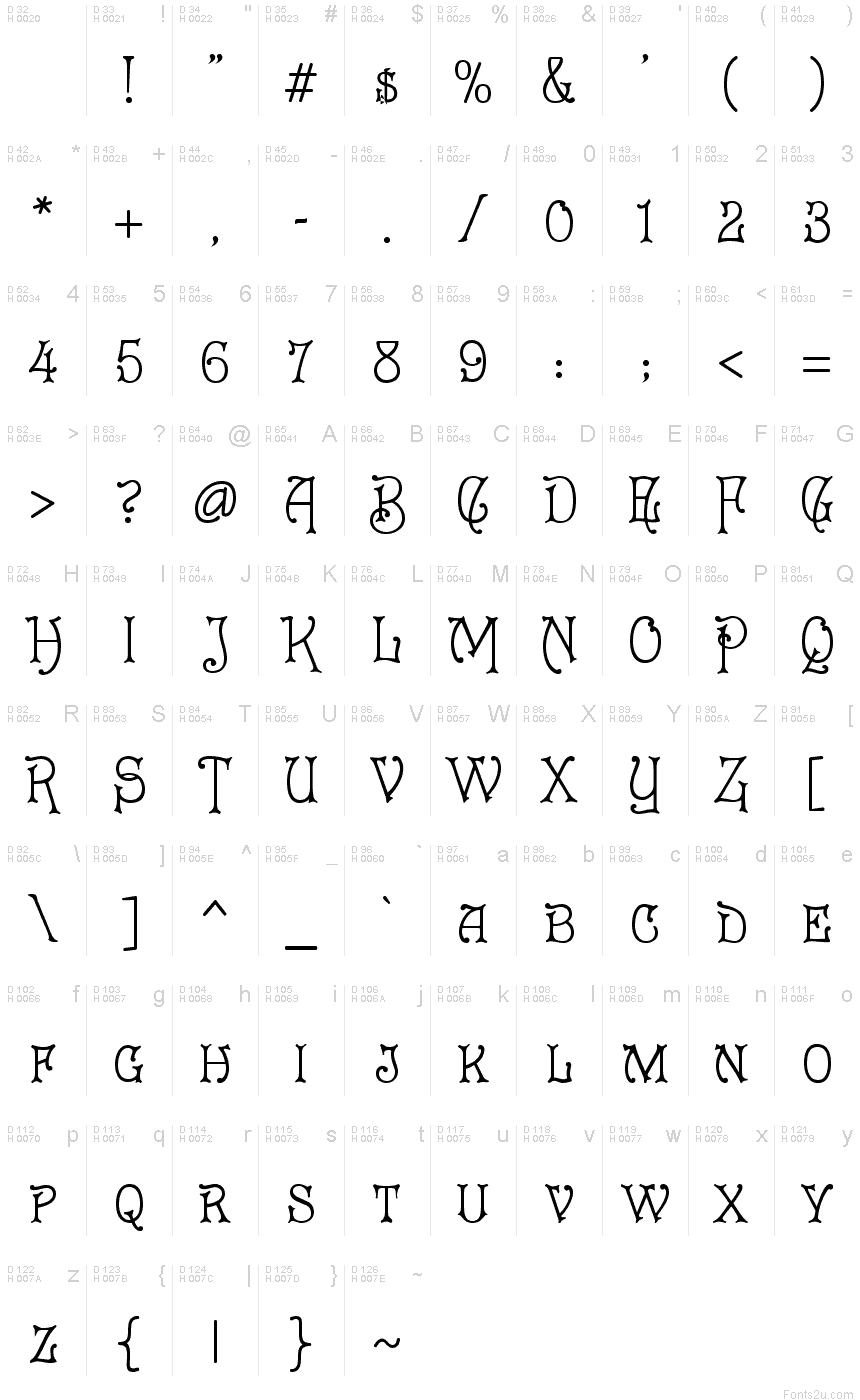
Cruickshank
Cruickshank font by Typographer Mediengestaltung is a free retro decorative font that feels like it’s been lifted from an old tavern sign or a well-worn fantasy novel. Curving strokes, hook-like entry shapes, and tightly carved counters give each letter a hand-inked, slightly mysterious presence. It has a dense, compact rhythm that reads as one cohesive wordmark, making short titles and names feel rich, ornate, and deliberate.
Using Cruickshank, you can instantly push projects toward folklore, fantasy, or Victorian drama—think book covers, tabletop RPG materials, themed restaurant menus, event posters, packaging, or boutique logos. This free font works best at larger sizes, where its curls and sculpted forms can breathe. Pair it with a plain geometric sans serif for body text to keep layouts readable while letting Cruickshank handle the mood and storytelling.